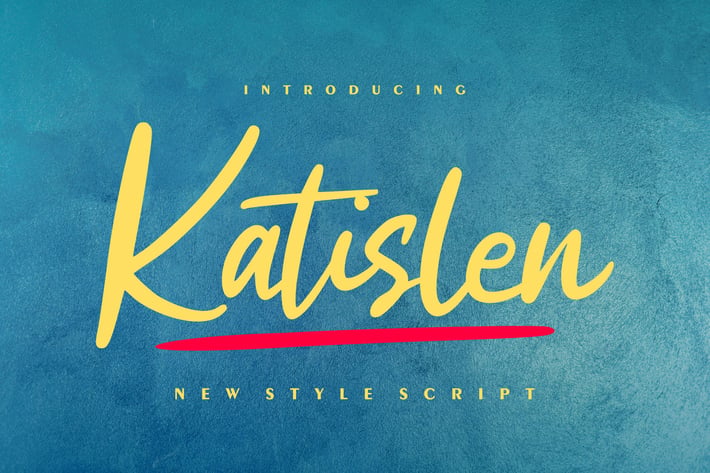
Katislen | New Style Script Font
Katislen | New Style Script Font with a calligraphy style, So beautiful on invitation like greeting cards, branding materials, business cards, quotes, posters, and more!